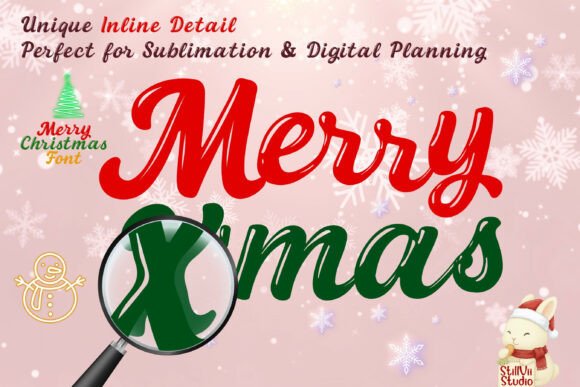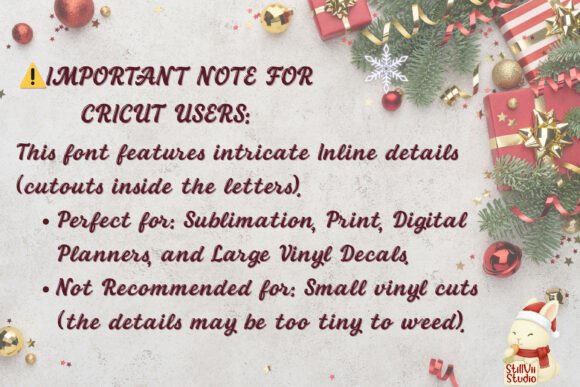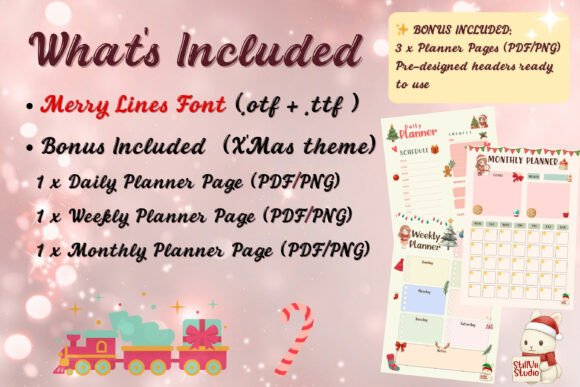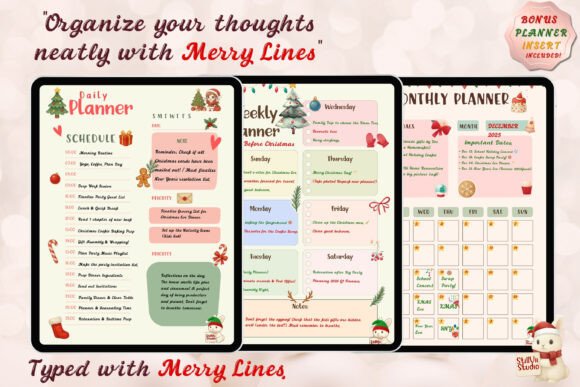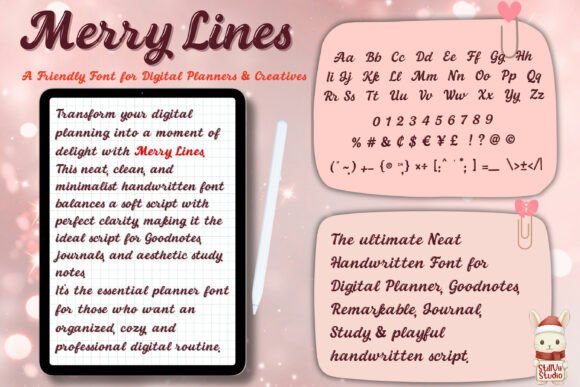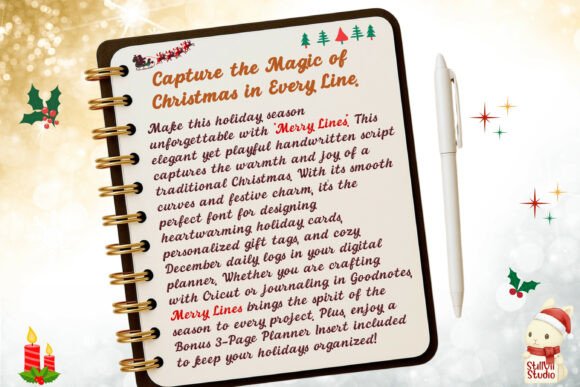
Merry Lines Font: A Timeless Treasure for Your Creative Projects
As you sit at your desk, surrounded by festive lights and the soft hum of holiday tunes, you feel the urge to create something truly special. The spark of inspiration strikes, and you envision a design that exudes warmth and elegance. For designers seeking to infuse their projects with a touch of vintage magic, the Merry Lines Font is a treasure trove of creative possibilities.
This unique Inline Script Font boasts intricate cutout details that evoke a premium, handcrafted feel, setting it apart from standard fonts. Perfect for sublimation, printables, digital planners, and large vinyl decals, the Merry Lines Font is a valuable addition to any designer’s toolkit. With its ability to add a cozy, textured look to digital journals and a retro vibe to holiday stationery, this font is sure to become a go-to design resource for creatives looking to elevate their projects.
Key Features of Merry Lines Font
- High-quality design resource ideal for creative projects requiring a unique, festive touch.
- Includes multiple lines and patterns, providing users with a versatile design resource for various creative applications.
Honest Review: Merry Lines Font
I recently came across the Merry Lines Font, and I must say it’s a fantastic addition to any designer’s toolkit. This font is perfect for creative projects that require a touch of whimsy and playfulness.
- High-quality design: The Merry Lines Font is beautifully crafted, with intricate details that make it a joy to work with.
- Not suitable for formal projects: While the Merry Lines Font is perfect for creative projects, it may not be the best choice for formal or professional designs.
- Limited character set: The font’s character set is somewhat limited, which may not be ideal for designers who need to work with a wide range of characters.
Overall, I’m impressed with the Merry Lines Font. Its unique design and high-quality construction make it a valuable design resource. While it may have some limitations, I believe it’s well worth the download – especially for designers working on creative projects.
To get the most out of the Merry Lines Font, use it in combination with other design elements to create a unique and eye-catching design. Experiment with different font sizes, colors, and styles to find the perfect look for your project.
The Merry Lines Font is commonly used in creative projects, such as graphic design, digital art, and typography. It’s also great for use in presentations, documents, and social media posts. The high quality and transparent background features of the Merry Lines Font make it a valuable design resource for designers of all levels.